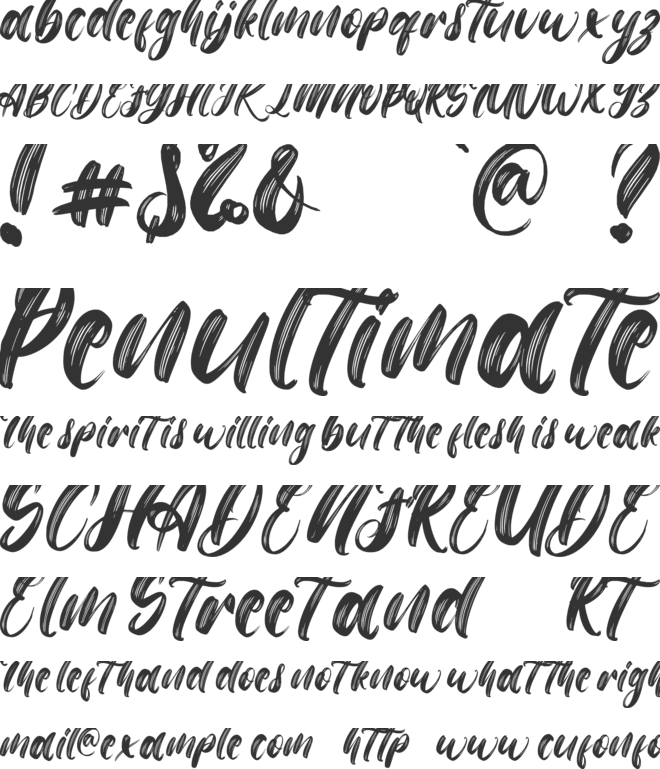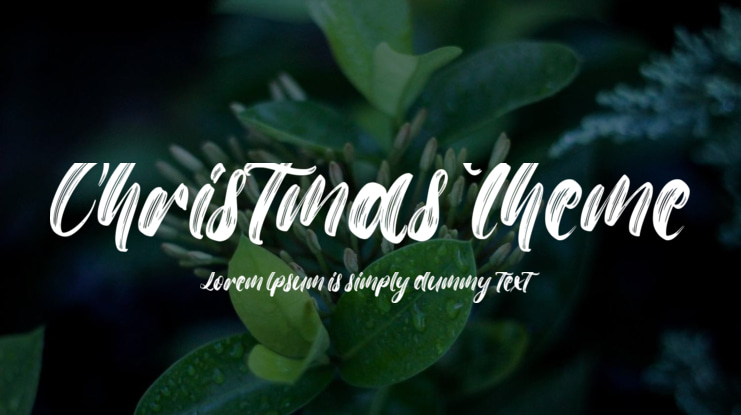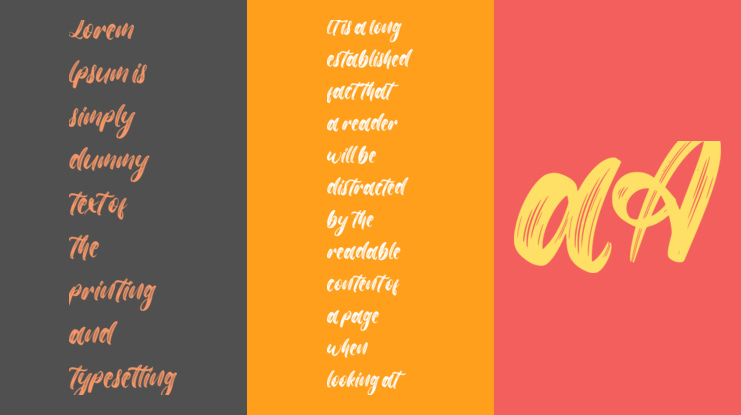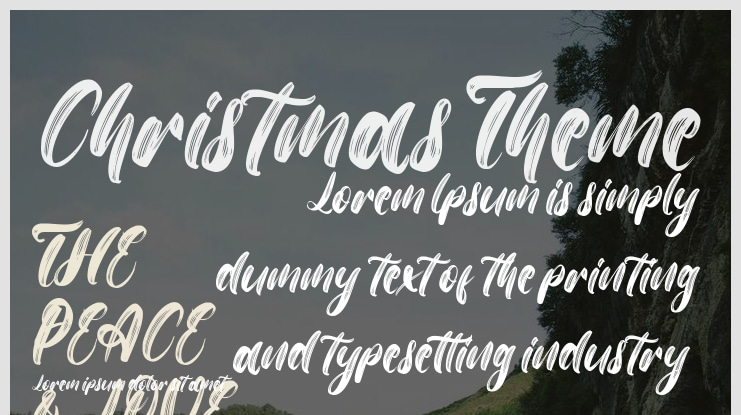
Christmas Theme Font
The Christmas Theme font is an adorable, one-of-a-kind script font. With its contemporary yet playful style, it will transport your designs into a captivating and enchanting realm. This font is ideal for a wide range of Christmas and New Year design projects.